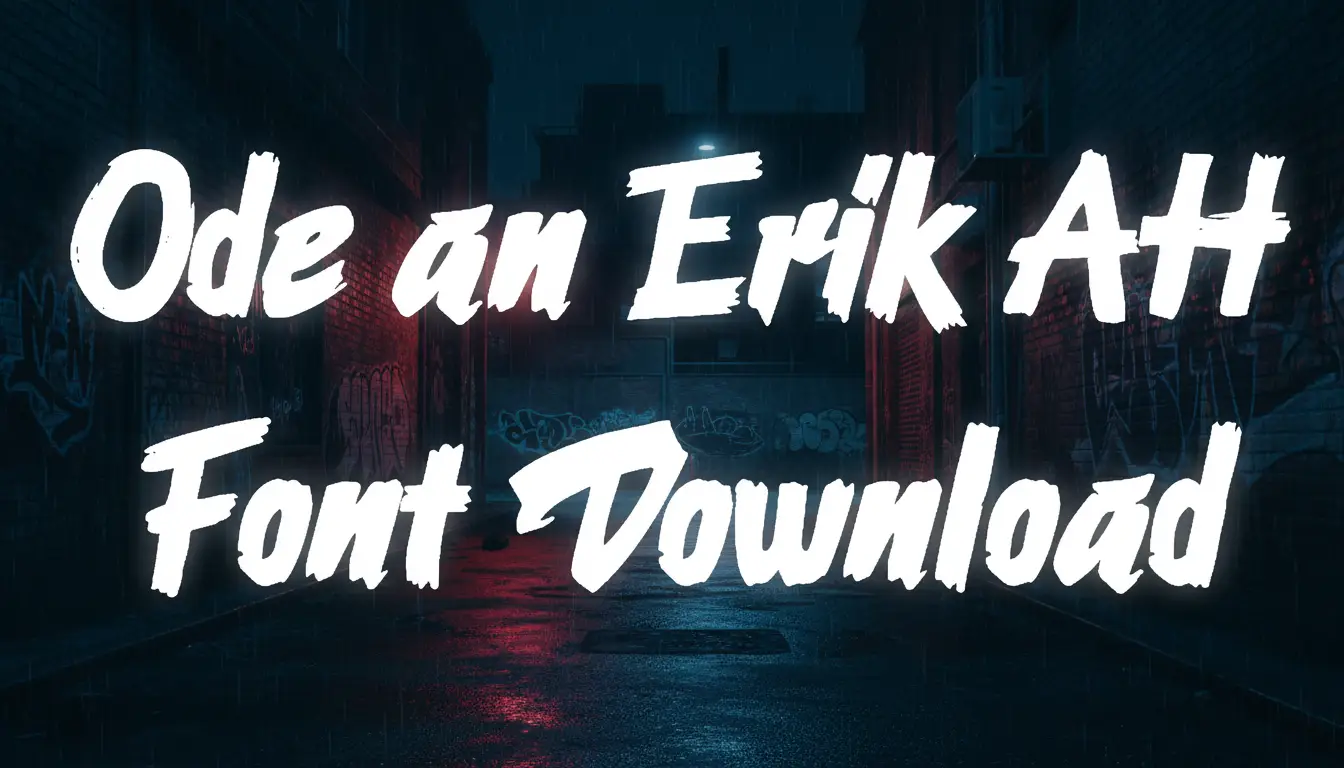
Ode an Erik AH Font
Ode an Erik AH
Ode an Erik AH is a script font designed by Andreas Höfeld and published by Fontgrube AH. Its flowing, pen-made letters give names and short phrases a personal, polished look. You can download it for free and test it with your own words in the preview above.
What You Can Type With Ode an Erik AH
You get every letter from A to Z in both cases and all the numbers from 0 to 9, which means Ode an Erik AH can handle full sentences, dates and prices. Common punctuation such as &, !, ? and @ is included as well. It also has the accented letters you need for Spanish, French, German, Portuguese and Italian.
Where Ode an Erik AH Works Best
Designers usually reach for fonts like Ode an Erik AH when they're making wedding invitations, logos and signature-style headings. Script fonts read best in short bursts, so keep it to names, titles and one-line quotes. Skip all caps: script capitals are drawn to start a word, not to fill one.
Does Ode an Erik AH support accented letters?
Yes. Ode an Erik AH includes the accented letters needed for Spanish, French, German, Portuguese and Italian, so it works for more than just English.